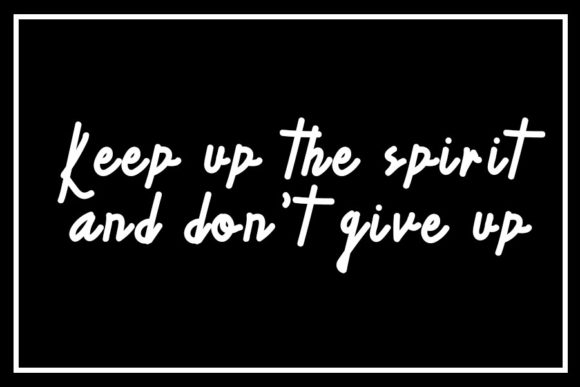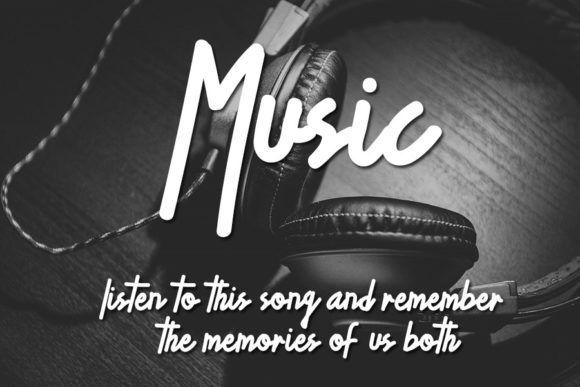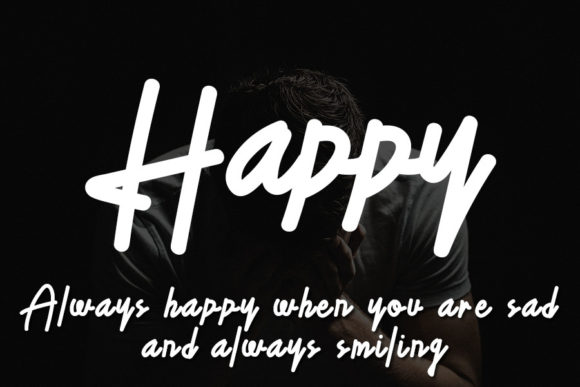
Hello Mellisa Font
Hello Mellisa is a lovely and timeless handwritten font that brings a touch of charm to your designs. It is the perfect choice for creating eye-catching logos, branding materials, and quotes that leave a lasting impression.
With its unique and beautiful letterforms, Hello Mellisa adds a sense of individuality and personality to your text. Each letter is crafted with care, showcasing a delightful touch that breathes life into your design. Whether you’re working on a logo for a creative business, crafting inspiring quotes, or designing elegant branding materials, this font will elevate your project and make it stand out.
Hello Mellisa’s timeless quality ensures that it will remain captivating and relevant for years to come. Its classic handwritten style transcends trends and adds a sense of authenticity to your designs.
Let Hello Mellisa be the choice that brings your designs to life. From elegant logos to impactful quotes, this font will help you create visually stunning and engaging visuals that resonate with your audience.
So, embrace the charm of Hello Mellisa and let it add a touch of beauty and uniqueness to your designs. Allow this font to be the key that unlocks creativity and captivates hearts.